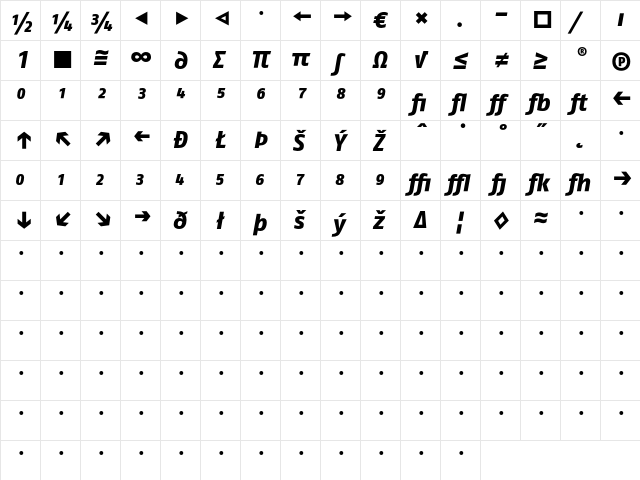
FagoNo ExtraBoldItalicExp
Design Context for FagoNo Typeface
FagoNo offers clean, dependable letterforms without strong stylistic allegiance, making it a practical choice for designers who need flexibility. The dynamic lean of this cut emphasises speed and emphasis in any layout. The heavy weight commands attention and anchors typographic hierarchies.
Pro Tip: Use FagoNo for emphasis, pull quotes, and subheadings where its slanted energy can add rhythm to the layout.